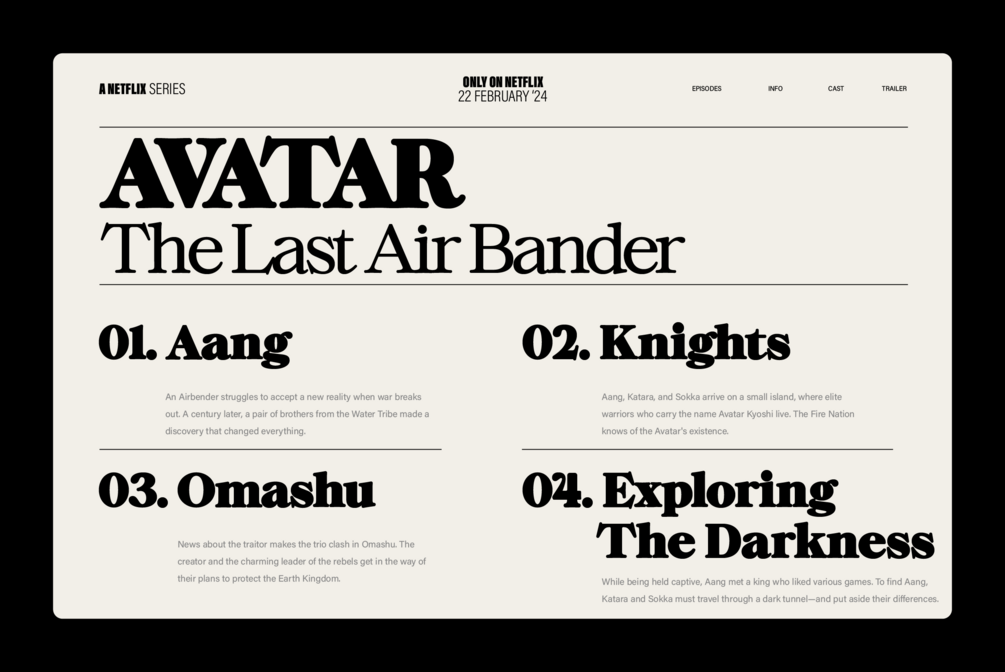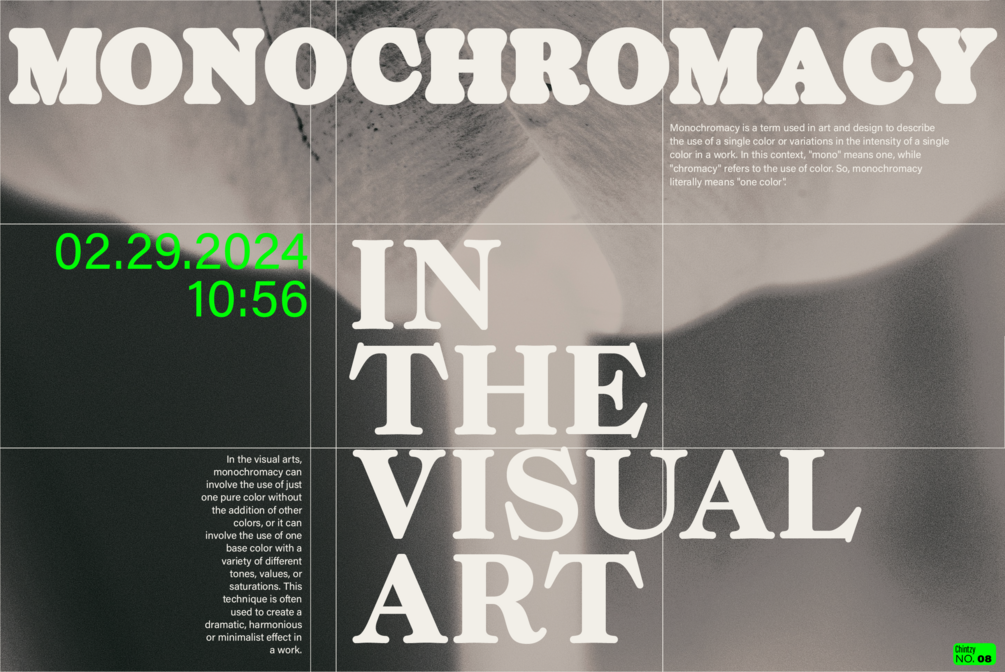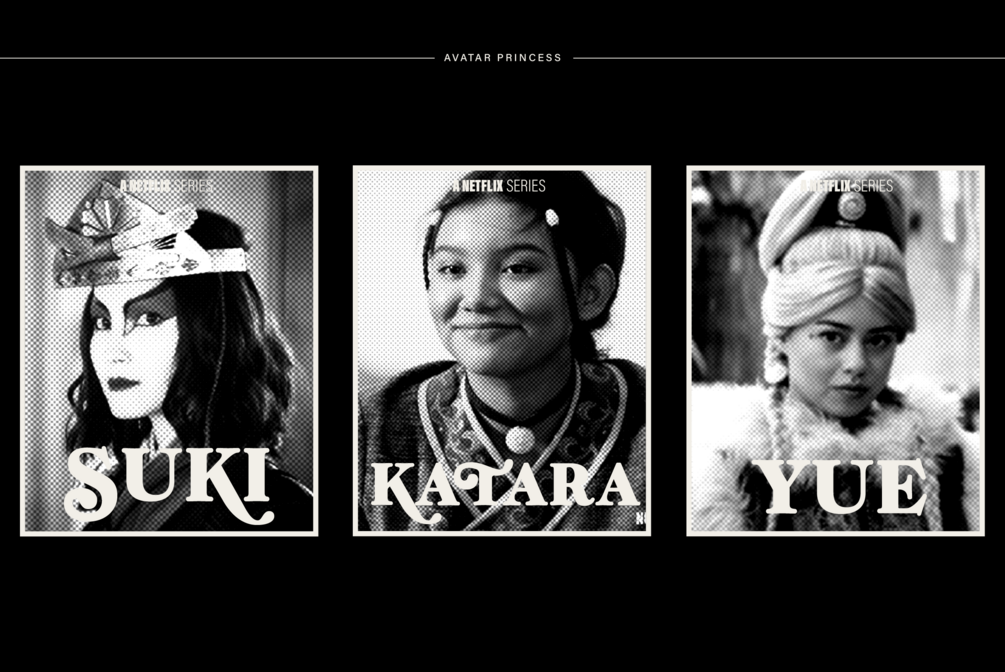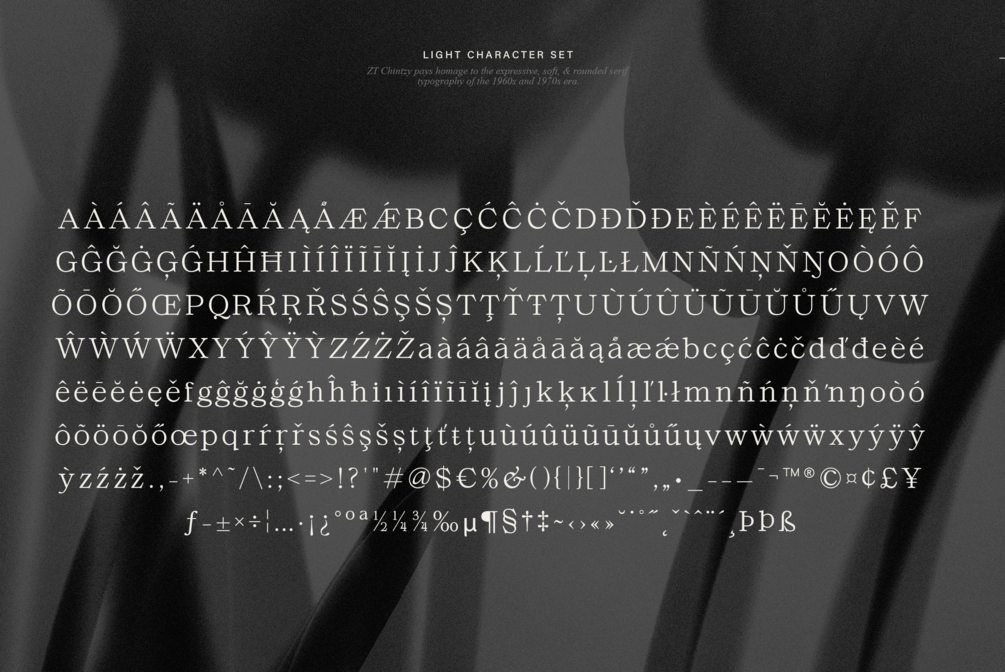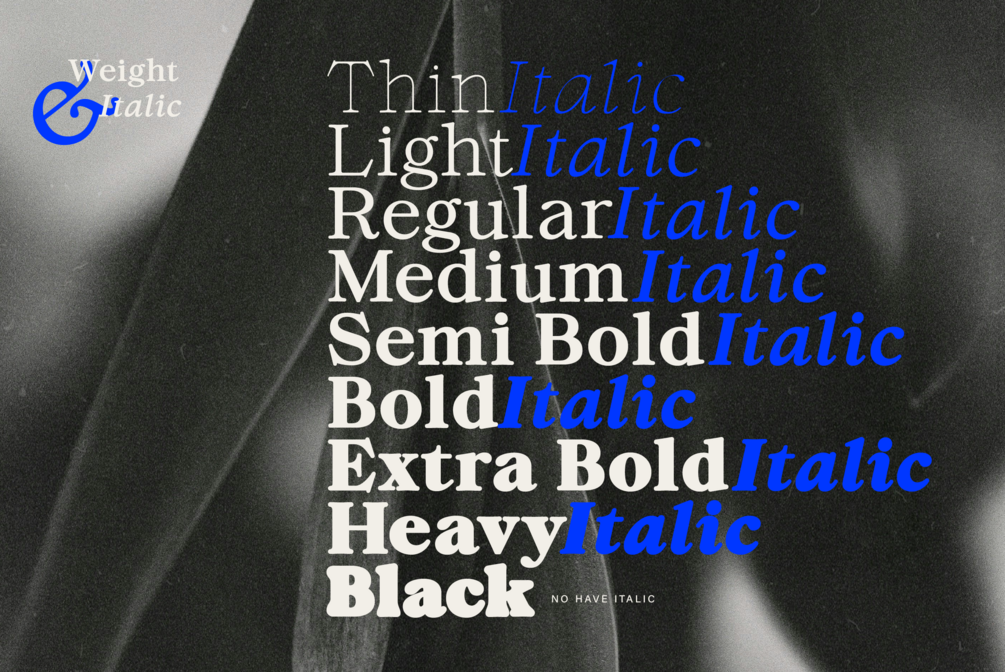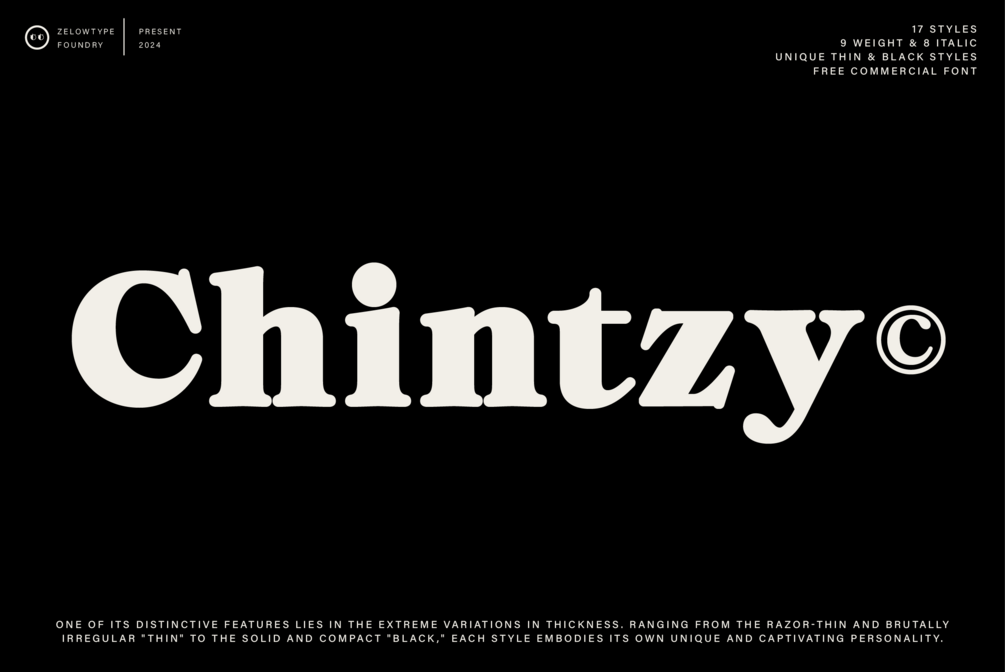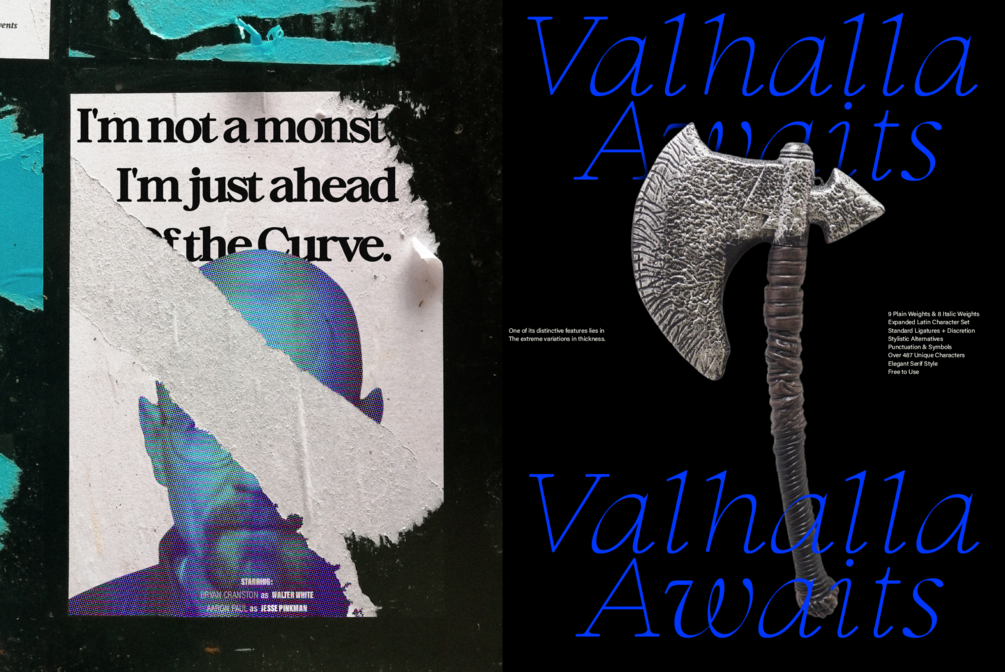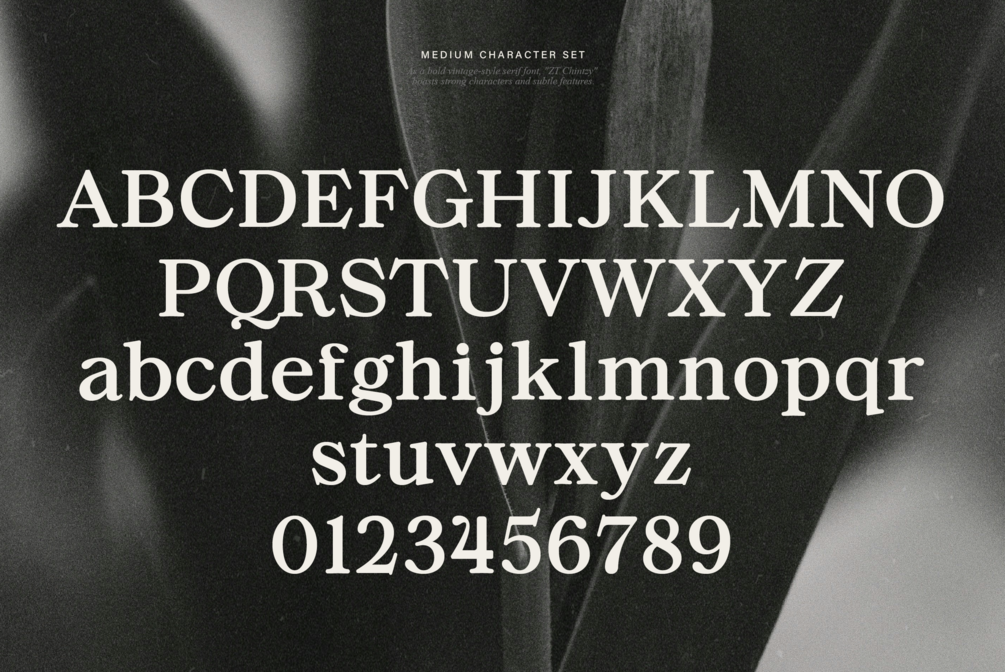
ZT Chintzy
ZT Chintzy pays homage to the expressive, soft, and rounded serif typography of the 1960s and 1970s era. Its gentle and captivating serifs evoke warmth and nostalgia reminiscent of that era's typefaces.
As a bold vintage-style serif font, ZT Chintzy boasts strong characters and subtle features. Equipped with alternatives, stylistic variations, and several standard ligatures, the font offers extensive versatility. With 17 styles available, including 8 different weights, ZT Chintzy caters to a wide range of design needs.
One of its distinctive features lies in the extreme variations in thickness. Ranging from the razor-thin and brutally irregular "Thin" to the solid and compact "Black," each style embodies its own unique and captivating personality.
Special features of the font include standard ligatures and discretion, alternative styles, as well as the addition of punctuation and symbols. With over 487 unique characters, ZT Chintzy adds richness and depth to every design you create.
Features of the "ZT Chintzy" font include:
• 9 Plain Weights & 8 Italic Weights
• Expanded Latin Character Set
• Standard Ligatures + Discretion
• Stylistic Alternatives
• Punctuation & Symbols
• Over 487 Unique Characters
• Elegant Serif Style